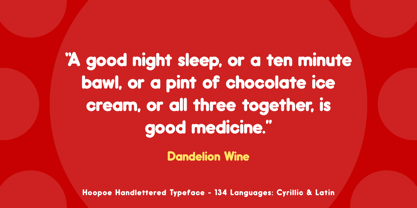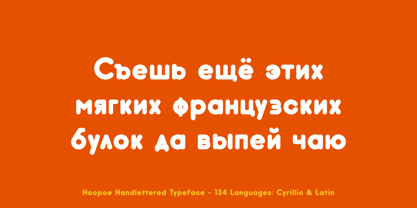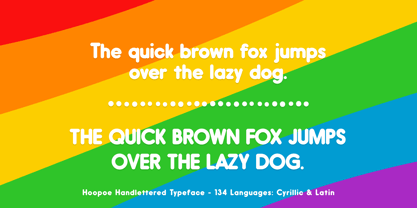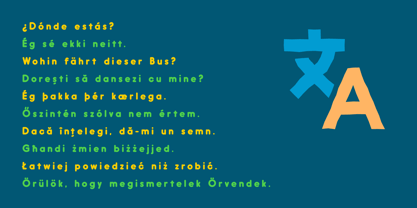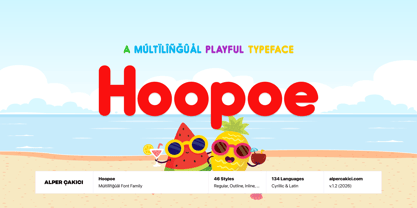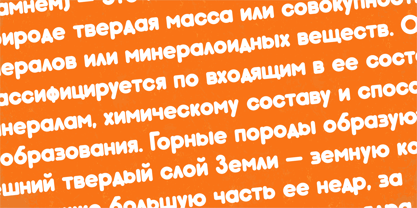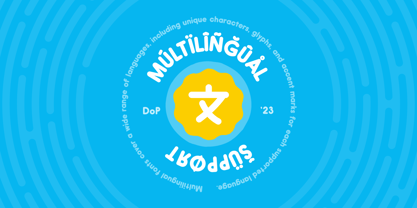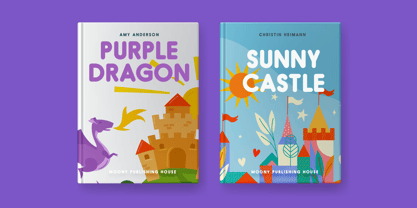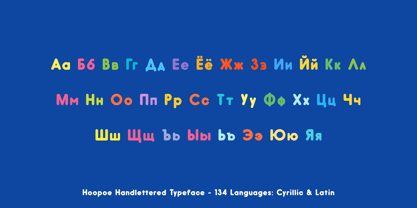
Hoopoe
The Hoopoe Font Family was designed by Alper Çakıcı and published by AlperCakici. Hoopoe contains 46 styles and family package options. More about this family
Hoopoe is a rounded geometric sans serif typeface designed with warmth and clarity in mind. Its soft curves and balanced proportions create a friendly, approachable tone while maintaining a clean, modern structure. Built on geometric foundations, Hoopoe ensures consistency across every letterform, making it highly versatile for both digital and print environments. With support for both Latin and Cyrillic scripts, Hoopoe is crafted for multilingual use, allowing designers to maintain a cohesive voice across different regions and audiences. The carefully refined shapes guarantee legibility at small sizes while preserving personality at larger scales, making it equally suitable for branding, editorial design, packaging, and user interfaces. Hoopoe’s “cute” yet structured appearance makes it ideal for contemporary projects that require a touch of softness without sacrificing professionalism. From bold headlines to minimal logotypes, it adapts seamlessly across a wide range of creative applications. Whether you’re building a modern brand identity or designing eye-catching posters, Hoopoe offers a distinctive, friendly voice grounded in geometric precision.